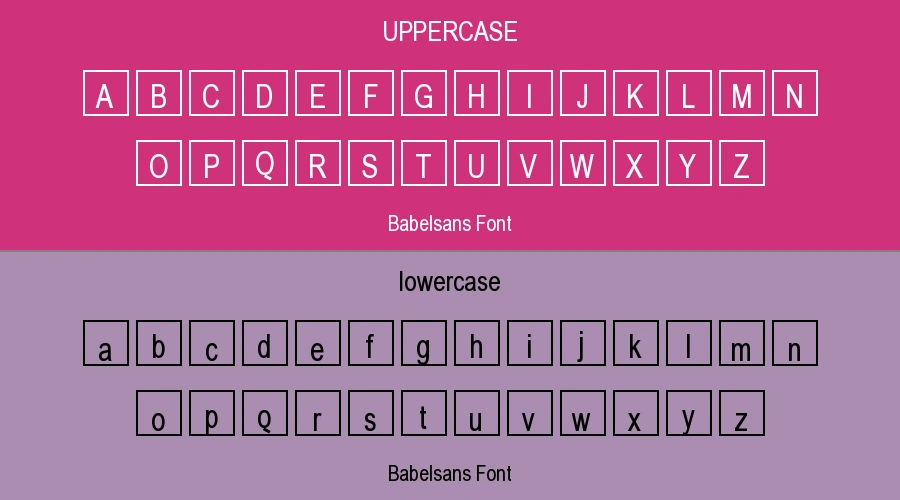
About Babelsans Font
Designed with precision, Babelsans Font merges creative flair with typographic color in every character. This versatility makes it particularly effective for exhibition design, where accuracy and craft excellence directly impact communication quality. Each letterform demonstrates meticulous craftsmanship.
Technical excellence shines through elements like ink traps and historical alternates, enhancing typographic versatility. In image captions settings, Babelsans Font proves its worth through superior footnote clarity. The thoughtful execution of contrast level and creative expression ensures professional results.